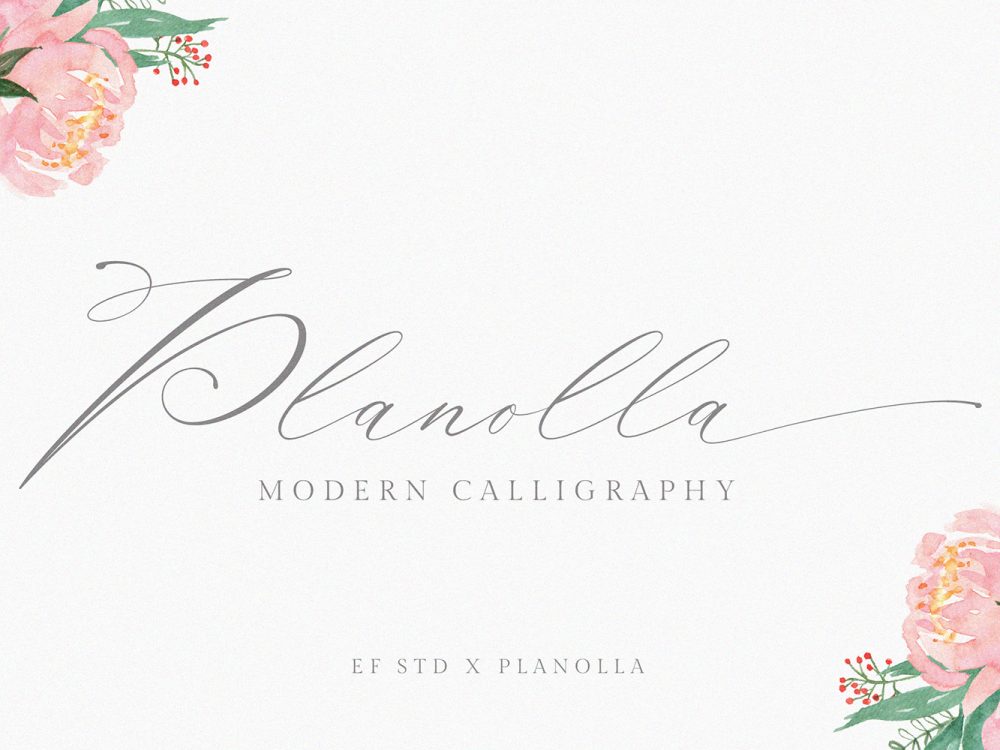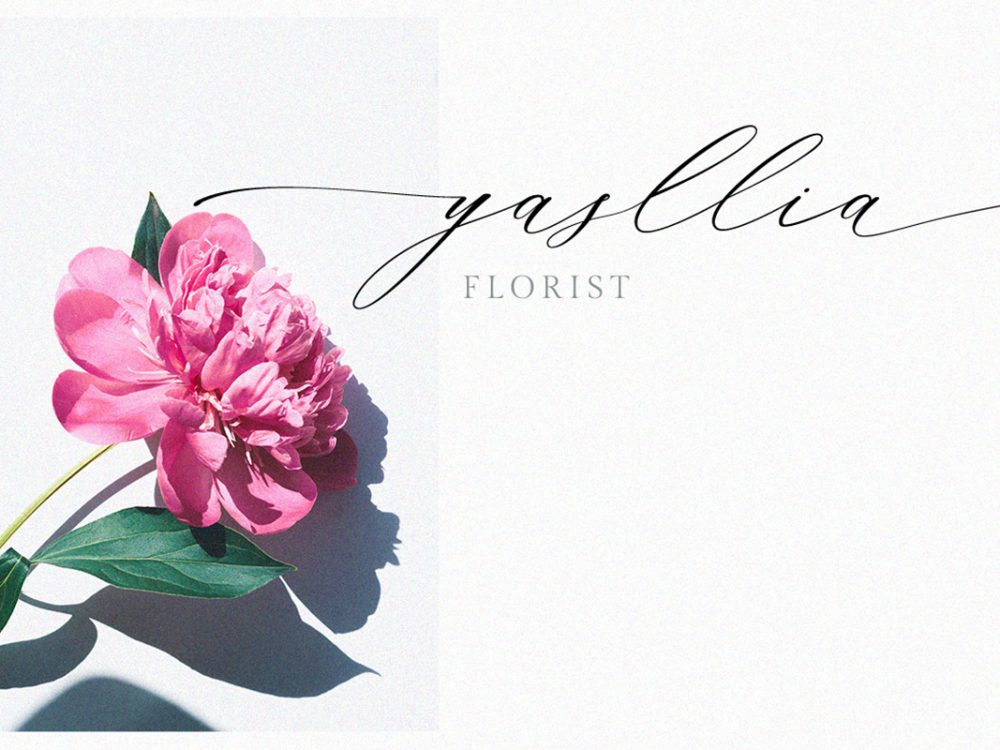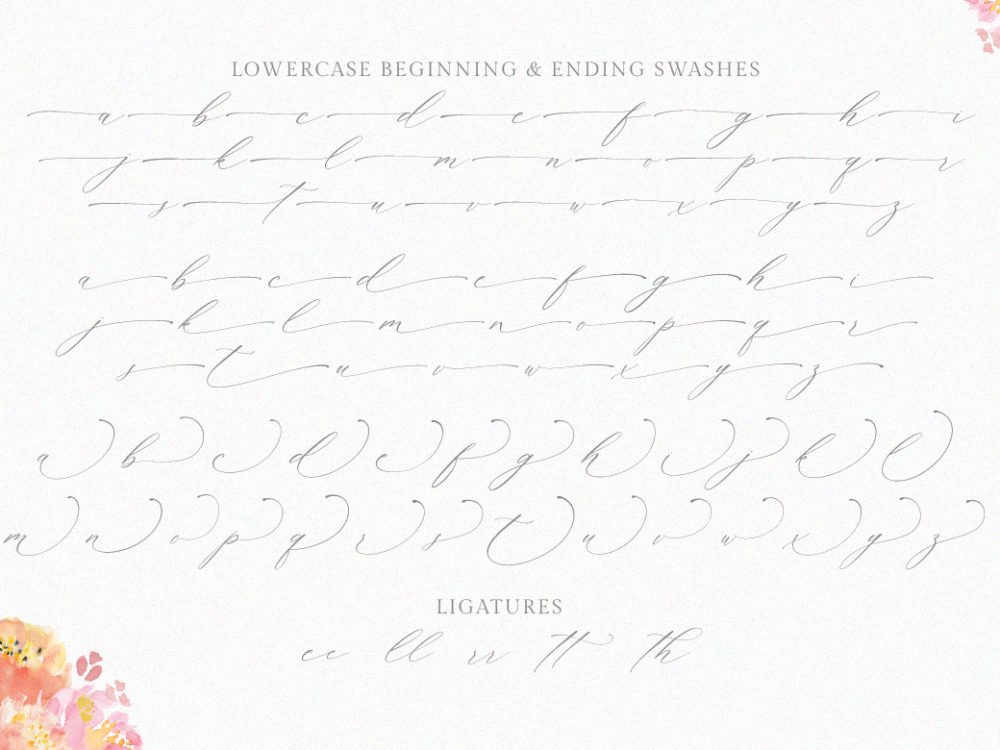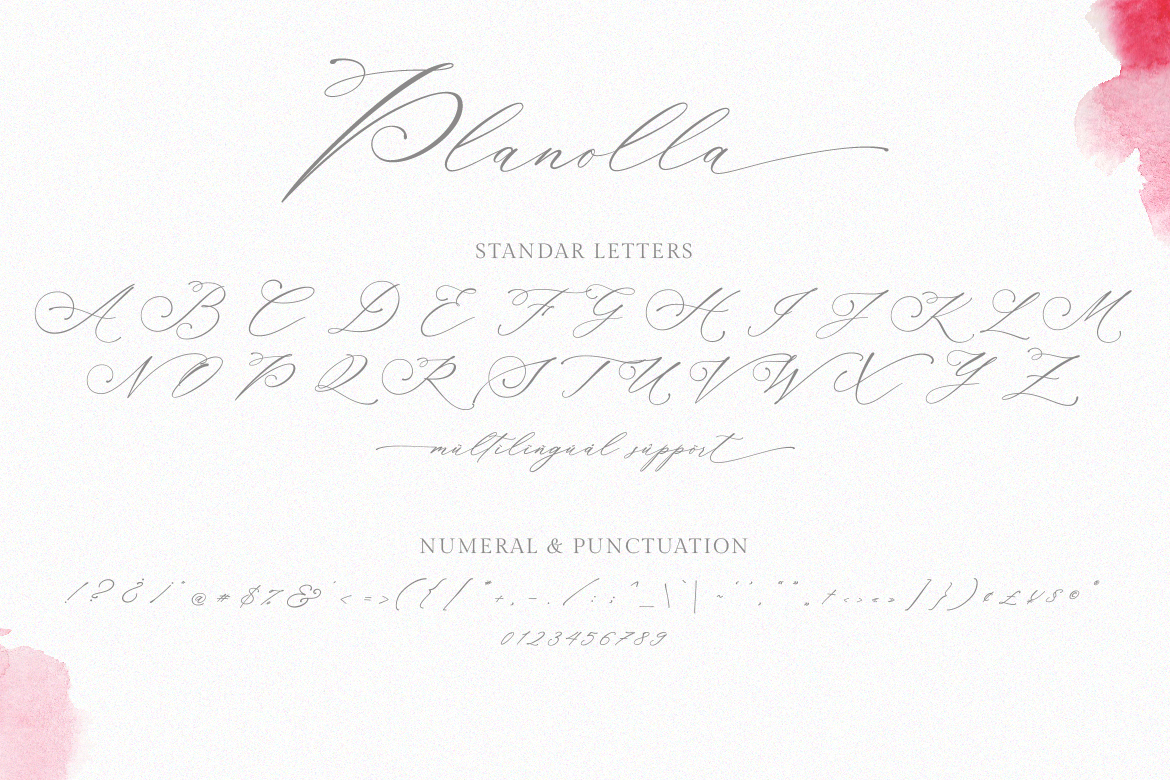
Planolla Free Font
Planolla Free Font is an elegant modern handwritten font that features a calligraphic style. This font is very suitable for creating various projects that require a script font. Use this font to create memorable branding projects, logos, wedding designs, social media posts, advertisements, product packaging, product designs, label, photography, watermark, invitation, stationery, and more. If you like it don’t forget to check out the full version.